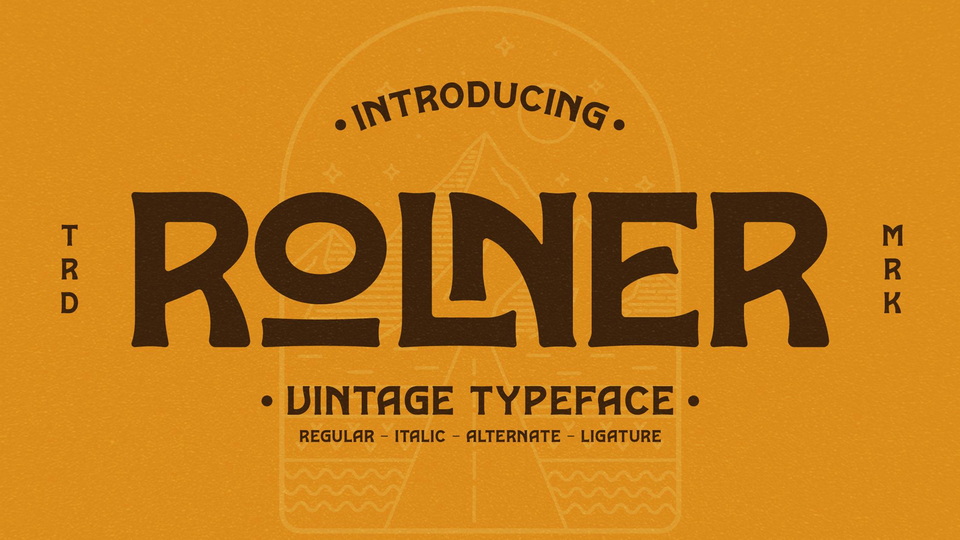
Rolner Font › Fontesk – Fonte Grátis
Rolner Font › Fontesk
Download Rolner font, a classic serif typeface with a unique style and modern look. Rolner is perfect for elegant and luxury logos, book or movie title design, fashion brands, magazines, clothes, lettering, quotes, and much more.